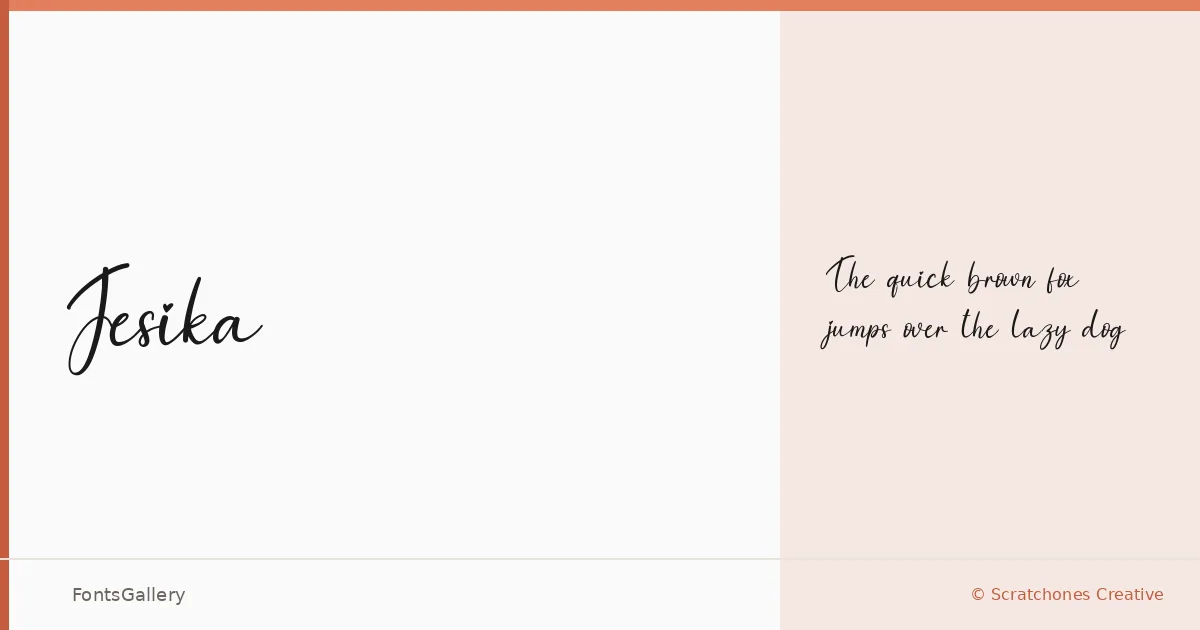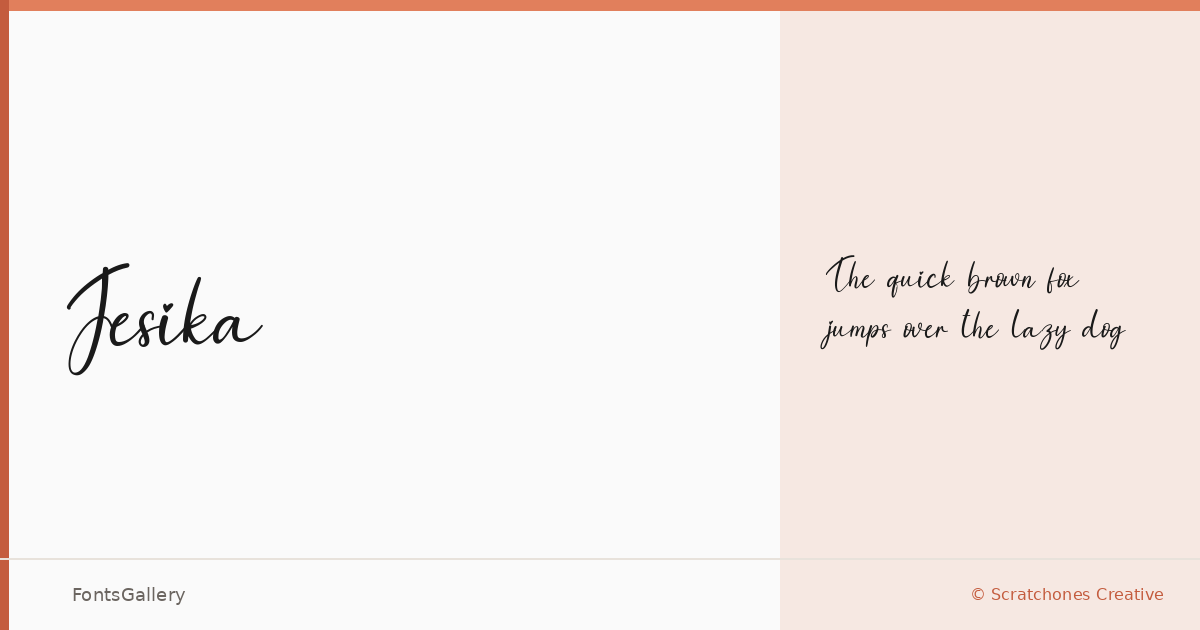
About Jesika Font
There is a particular softness to the way Jesika moves across the baseline — a flowing, connected script with the kind of measured elegance that sits comfortably alongside lace and letterpress alike. It was designed by Scratchones Creative and arrives as a single Regular weight in both TTF and OTF formats.
This is a classic, romantic script built for moments that call for a lighter touch. The letterforms carry a graceful, calligraphic quality — curves that lift and resolve without feeling overwrought — making it well suited to contexts where the writing itself needs to feel considered and warm. With one style in the family, the design makes its case entirely through the consistency and character of that single cut.
Wedding stationery, invitation cards, greeting cards, and social media graphics are the natural home for this face, and it holds up equally well in logo work where a romantic, handwritten register is called for. Its Latin coverage keeps it grounded in Western-language contexts. For contrast and balance, it pairs well alongside Canela, Helvetica, AQUA, Etna, and ABC Arizona — each of which can anchor the more structured elements of a layout while the script handles the warmth.